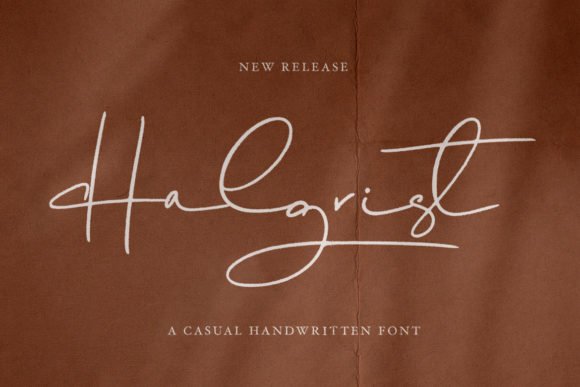
Have you ever been in the midst of a creative brainstorm, surrounded by scribbled notes, half-finished sketches, and a faint glimmer of inspiration in the air? That’s where I was when I stumbled upon the Halgrist Font – a thin and elegant handwritten font that breathed new life into my project. I knew right then that I had found the perfect script for the job.
Halgrist Font is a versatile and sophisticated font, designed to elevate your designs and leave a lasting impression. Whether you’re working on logos and branding, invitations, or social media posts, this font is the perfect addition to your creative toolkit. With its delicate touch and elegant flair, Halgrist Font is a valuable asset for designers looking to add a personal touch to their projects.
Halgrist Font Key Features
- Unique Characteristics: Halgrist Font features a unique blend of modern and traditional typography, with a distinctive flair and elegance
Halgrist Font Review
I recently had the chance to work with the Halgrist font, and I must say it’s an interesting choice. There are some aspects where it truly shines ✨.
- Unique Style: The Halgrist font has a distinctive, hand-crafted feel to it, which can be quite appealing in the right context.
- Readability: At larger font sizes, the text is surprisingly readable and easy to follow.
However, there are some limitations that might make it less suitable for certain projects ⚠️.
- Legibility at Smaller Sizes: When scaled down, the font can become quite difficult to read, and the unique style starts to feel more like a distraction.
- Lack of Consistency: The font’s irregularities can make it challenging to maintain a consistent visual flow across different lines of text.
Overall, I think the Halgrist font is a good choice for projects where you want to add a touch of personality and uniqueness. However, it might not be the best fit for body text or situations where readability is a top priority.
Halgrist Font is suitable for:
– Luxury branding and packaging
– High-end publications and magazines
– Elegant invitations and wedding stationery
– Sophisticated business presentations and reports
Alternative Fonts to Halgrist Font